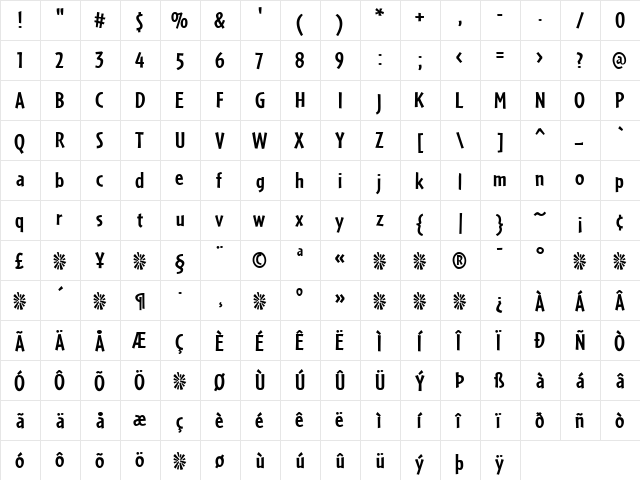
Cafeteria Bold
| Foundry | Copr. Tobias Frere-Jones. Designed by Tobias Frere-Jones. Produced by The Font Bureau, Inc |
Design Context for Cafeteria Typeface
Cafeteria is a composed and adaptable typeface that performs quietly and consistently across a wide range of design contexts. The heavy weight commands attention and anchors typographic hierarchies.